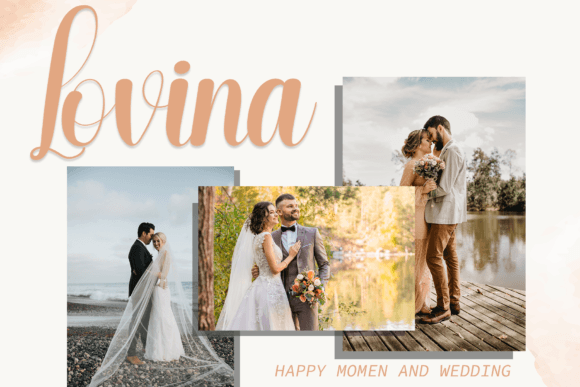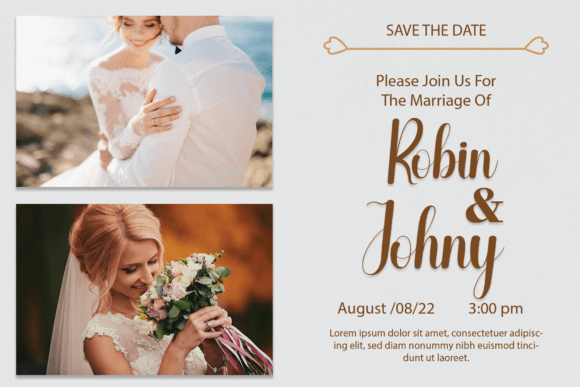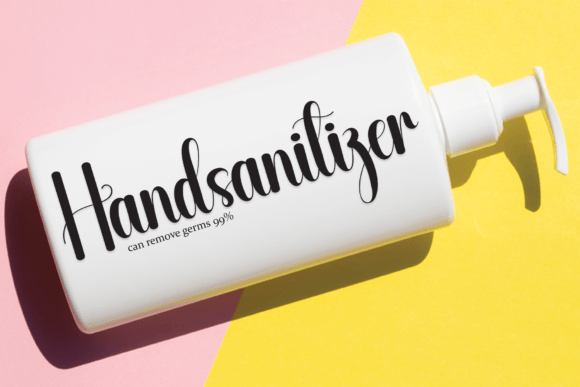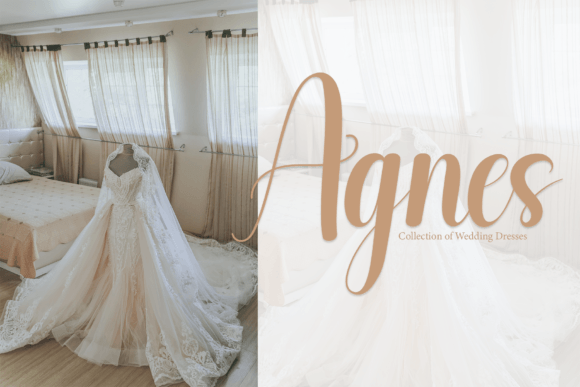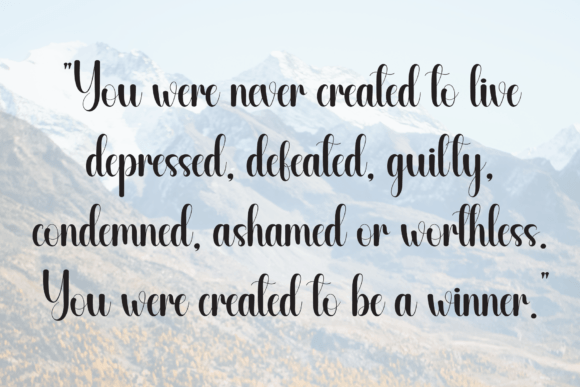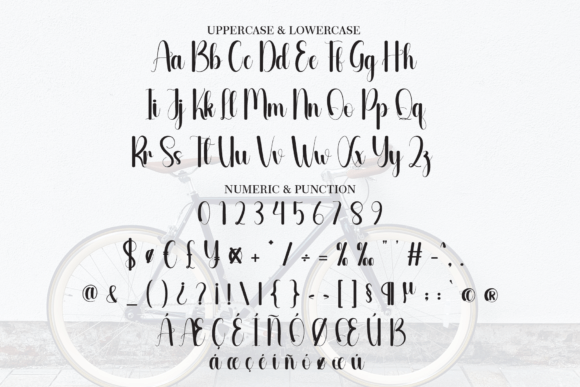
Bicycle Font: Adding a Touch of Whimsy to Your Designs
Bicycle font is a delightful handwritten font that has been gaining popularity among designers and crafters. Its sweet and friendly vibe makes it an ideal choice for adding a personal touch to various design projects. In this article, we’ll explore the features and benefits of Bicycle font, and how you can use it to elevate your designs.
What is Bicycle Font?
Bicycle font is a fresh and neat handwritten font that exudes a sense of playfulness and charm. Its unique character set and carefully crafted letterforms make it perfect for designs that require a touch of whimsy. Whether you’re creating wedding invitations, greeting cards, or social media graphics, Bicycle font is sure to add a dash of personality to your work.
Key Features of Bicycle Font
- Handwritten style: Bicycle font boasts a beautiful handwritten style that’s both elegant and approachable.
- Fresh and neat: The font’s clean lines and carefully crafted letterforms give it a fresh and neat appearance.
- Versatile: Bicycle font can be used for a wide range of design projects, from wedding invitations to social media graphics.
- Easy to read: The font’s clear and legible letterforms make it easy to read, even at small sizes.
Use Cases for Bicycle Font
Bicycle font is an excellent choice for various design projects, including:
- Wedding invitations: Add a touch of romance and whimsy to your wedding invitations with Bicycle font.
- Greeting cards: Use Bicycle font to create personalized and heartfelt greeting cards for special occasions.
- Social media graphics: Add a playful touch to your social media graphics, such as Instagram posts and Facebook covers.
- Branding and packaging: Use Bicycle font to create unique and eye-catching branding and packaging designs.
Tips for Using Bicycle Font
Here are some tips for getting the most out of Bicycle font:
- Pair with complementary fonts: Pair Bicycle font with complementary fonts to create visual interest and hierarchy.
- Experiment with colors: Try out different color combinations to find the perfect match for your design.
- Use it sparingly: Use Bicycle font sparingly to avoid overwhelming your design.
Bicycle font is a sweet and friendly handwritten font that’s perfect for adding a touch of whimsy to your designs. Its fresh and neat appearance, versatility, and ease of use make it an excellent choice for designers and crafters. Whether you’re creating wedding invitations, greeting cards, or social media graphics, Bicycle font is sure to elevate your designs and make them stand out.